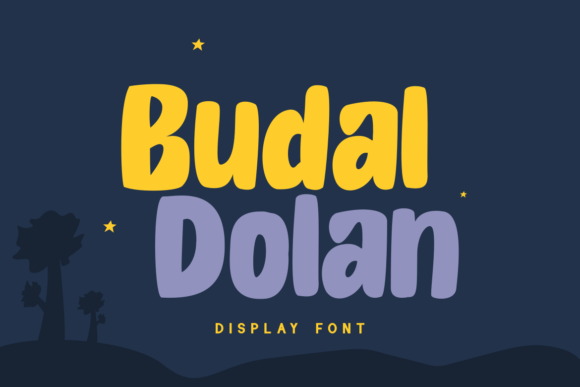
The Font that Saved my Sanity: A Deep Dive into Budal Dolan
I still remember the design project that had me pulling my hair out. I was working on a branding campaign for a trendy new cafe, and I just couldn’t find the right font. The client wanted something modern, yet easy to read, and I was starting to think it was a mythical creature. That’s when I stumbled upon Budal Dolan, a chubby and modern display font that would become my design savior.
So, what makes Budal Dolan so special? Let’s dive into the good stuff and, well, the not-so-good stuff.
- ✨ Easy to read: Budal Dolan is a display font that’s surprisingly legible, even at smaller sizes.
- ✅ Modern and fresh: This font has a youthful vibe that’s perfect for brands that want to look current.
- 💡 Versatile: Budal Dolan works well for headings, titles, and even short paragraphs.
The Not-So-Good Stuff
While Budal Dolan is an amazing font, it’s not perfect. Here are a few quirks to keep in mind:
- 🤔 Limited use for body text: While it’s easy to read, Budal Dolan is still a display font and might not be the best choice for longer blocks of text.
- ⚠️ Some letters may appear too similar: Keep an eye on letters like “i” and “l” or “b” and “d” – they might get a bit confusing.
The Story Behind Budal Dolan
While I couldn’t find any information on the exact design process behind Budal Dolan, I like to imagine that it was created by a team of designers who were tired of boring, generic fonts. They wanted to create something fresh, fun, and modern – and thus, Budal Dolan was born.
| Font Name | Budal Dolan Font |
| Author | GFRcreative |
Q: What is Budal Dolan?
A: Budal Dolan is a modern display font designed for use in a variety of design projects, from branding to advertising.
Q: What type of projects is Budal Dolan best suited for?
A: Budal Dolan is perfect for projects that require a modern, eye-catching font, such as branding, advertising, packaging, and more.